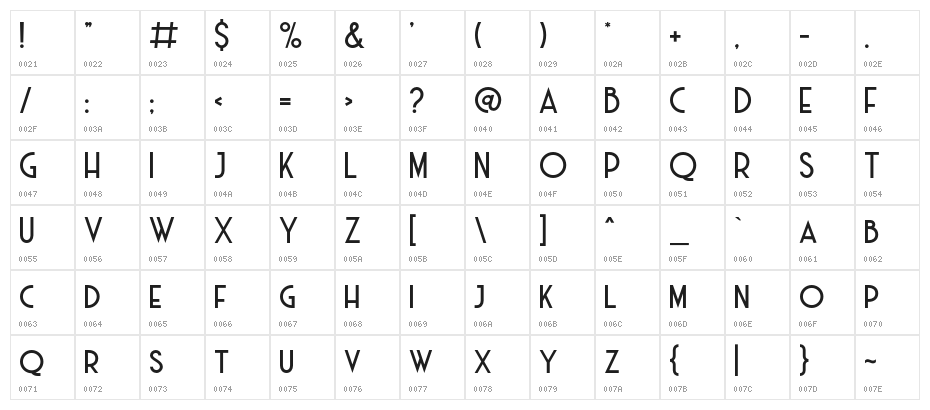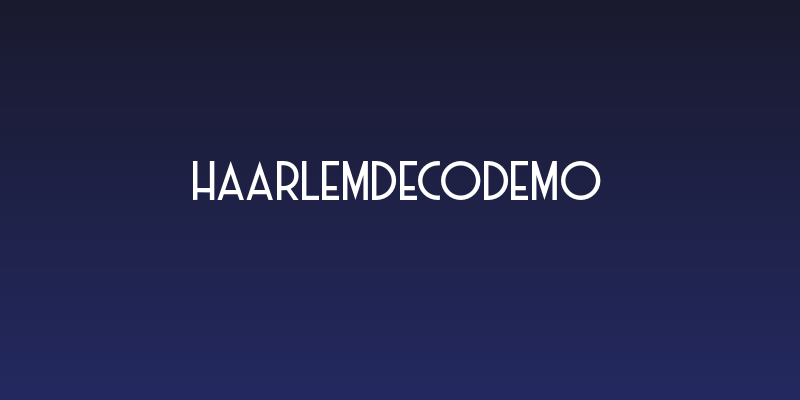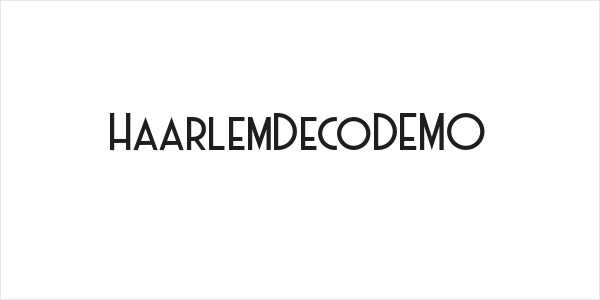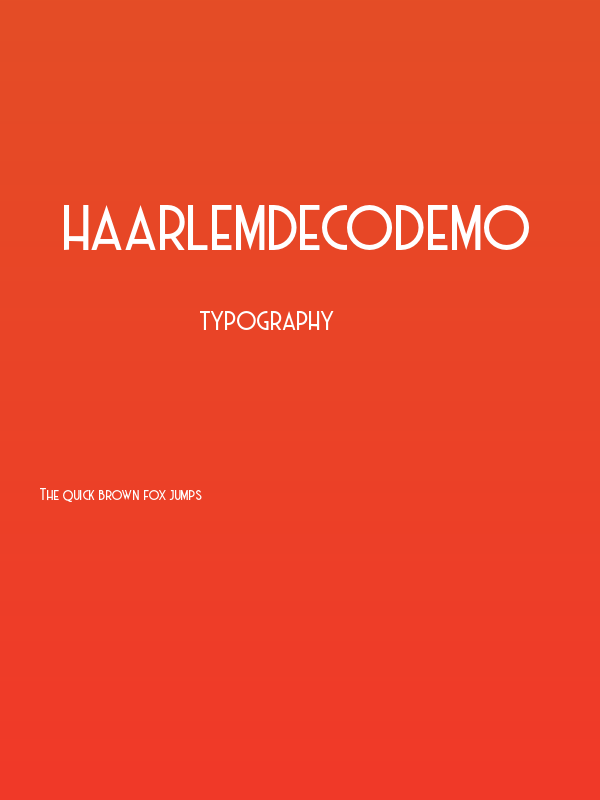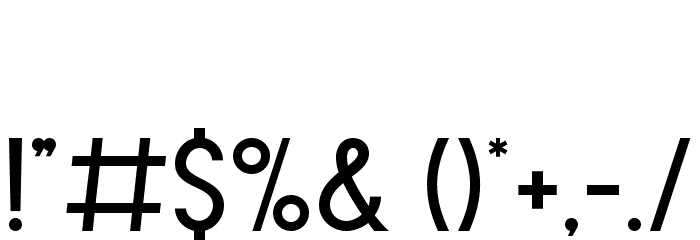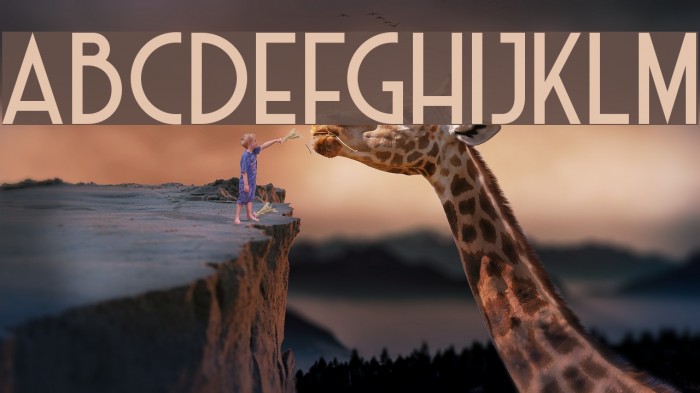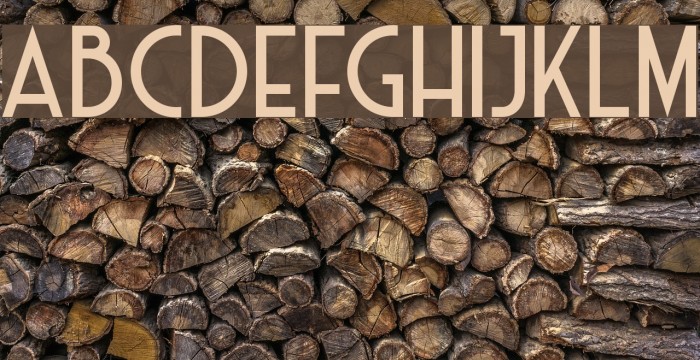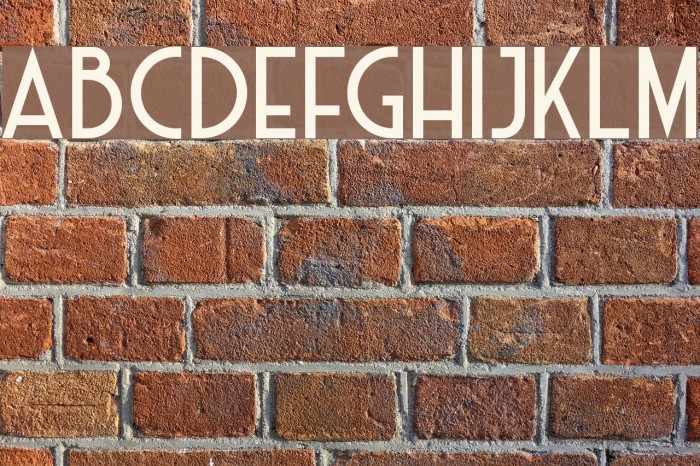
HaarlemDecoDEMO Font
✎ Art Deco
HaarlemDecoDEMO Description
This font exhibits a strong Art Deco influence, characterized by its geometric shapes and clean lines. The uppercase letters are bold and commanding, with a uniform stroke width that gives them a solid, structured appearance. The lowercase letters maintain the same geometric precision, ensuring consistency across the typeface. The numerals are equally bold, matching the style of the letters, and the special characters are designed to complement the overall aesthetic. This font's design is both modern and timeless, making it versatile for various applications.
| Overall Style | Art Deco, Modern |
| Proposed Projects | Ideal for branding, posters, and editorial design where a vintage yet modern feel is desired. |